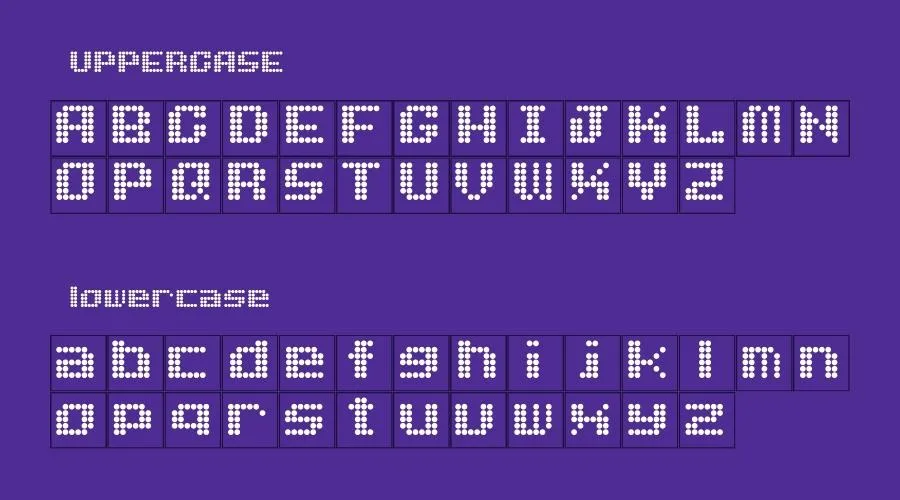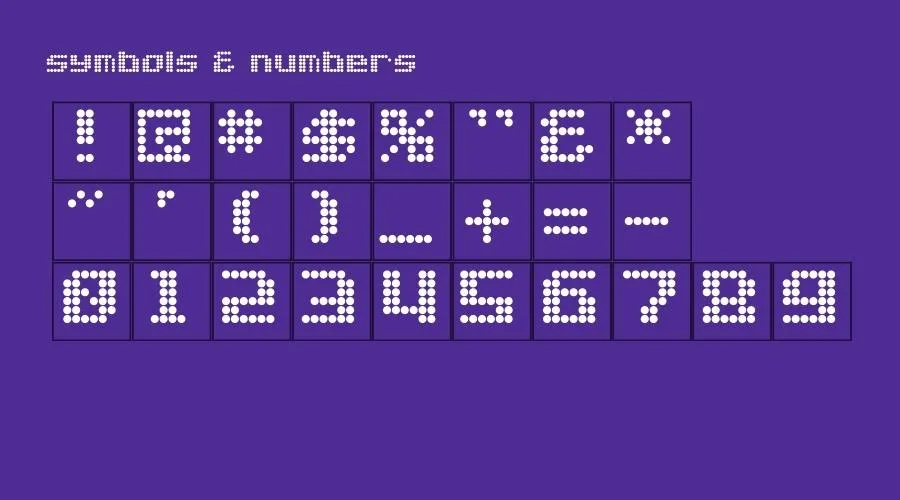
Dot Font
About Dot Font
The Dot font is a famous texture that was developed by a well-known American graphic designer named Eisuke Furukawa. This font is under the category of the techno texture family with ultra-unique characters of alphabet set.
It contains various unique weights (bold, regular, italic,) and styles. This font has an online generator tool that will help you to convert all your normal textures into stylish and modern shapes. The font includes a mixture of features that make it amazing, such as its wide range of glyphs.
If you’re looking for a contemporary and stylish font with a wide range of elements, this font is a great option. This Font is a versatile font that can be utilized for a combination of purposes.
Whether you are looking for a stylish font for body text or any other projects like coding, or programming this font is a great option. This font is also generally utilized for social media posts and logo designs.
In addition, the font encloses many special qualities that construct its model for code blocks and other various plans. You can also utilize this typeface for making posters, advertisements, and flags, and also utilize some software such as canvas, Illustrator, PowerPoint, and many more.
Name Dot Font
Designer Eisuke Furukawa
Style Techno
What is the dot font?
This outstanding typeface is under the category of the techno texture family with ultra-unique characters of alphabet set.
Who is the designer of the Dot Font?
It is a famous texture that was developed by a well-known American graphic designer named Eisuke Furukawa.
Where can I use the Dot Font?
You can also utilize this typeface for making posters, advertisements, and flags, and also utilize some software such as canvas, and many more